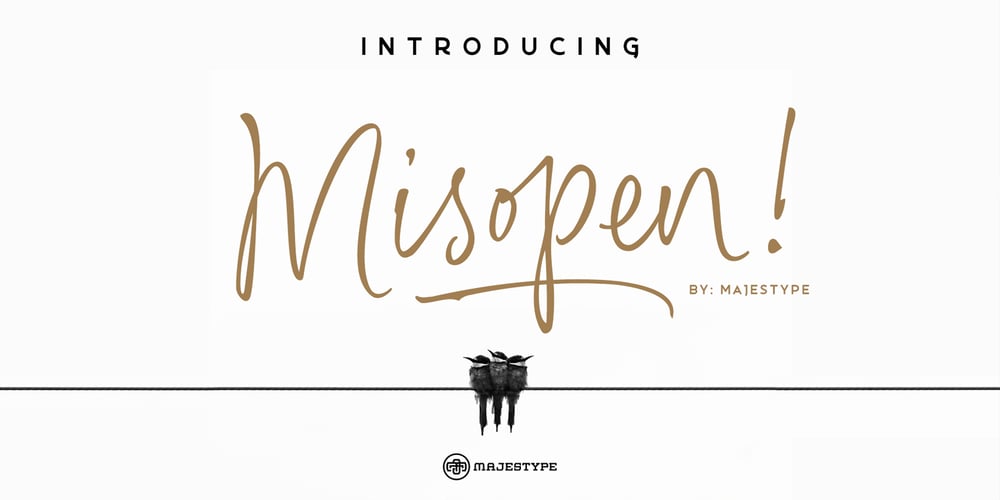
Misopen Script Font Family was designed by Dexsar Harry Anugrah and published by Majestype. Misopen Script contains 1 styles and family package options. Misopen is a handwriting script font with a unique, casual and beautiful handwriting style. Misopen was made using a calligraphy pen with a fine nib. This font was designed by writing a lot of sample letters and trying to make it connect natural. It also contains many OpenType “ligatures”. Each letter was made with love and designed to work well on designs like invitations, wedding, signatures, clothing, photography, branding, album covers and more. Just try it yourself.